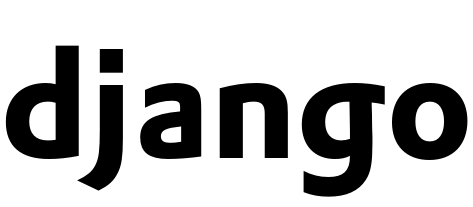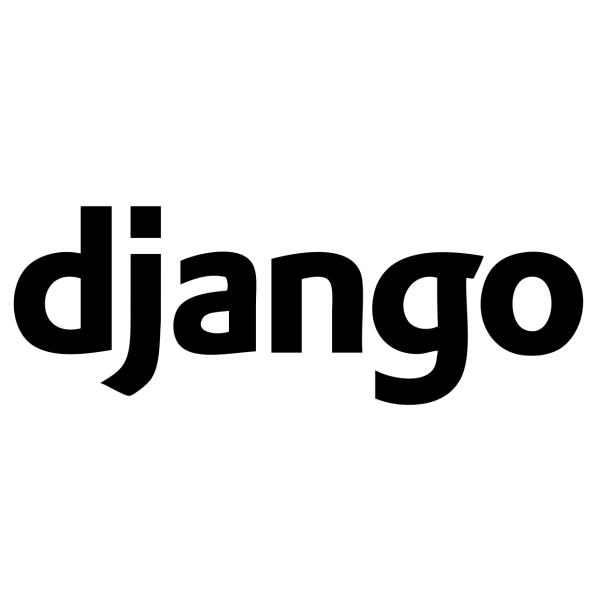
Django Logo Font
The Django logo is designed based on DTL Prokyon Bold, a rounded sans-serif font crafted by Erhard Kaiser and released by Dutch Type Library (DTL). More details about the fonts are available here.